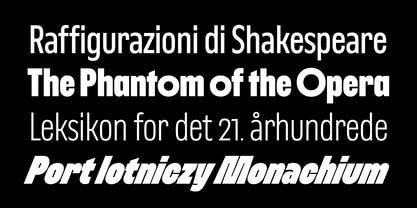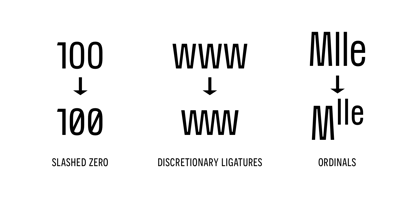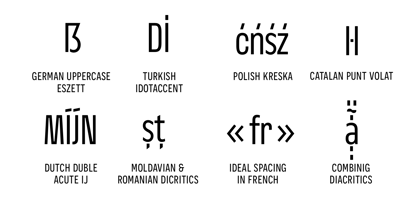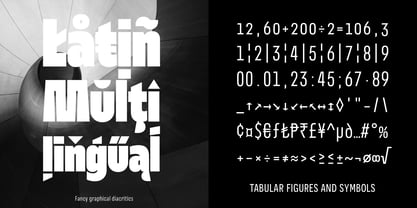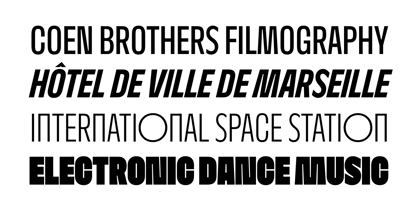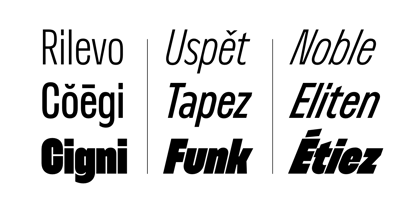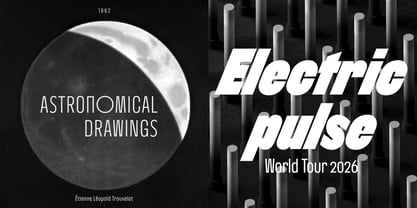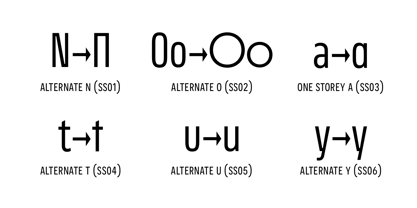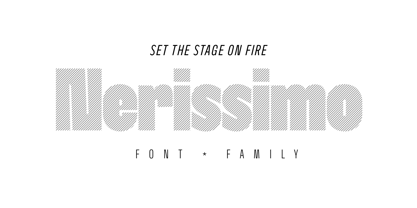
Nerissimo
by Synthview
The Nerissimo Font Family was designed by Jan Tonellato and published by Synthview. Nerissimo contains 18 styles and family package options.
A bold display typeface inspired by brutalist architecture, Nerissimo was built for headlines that demand attention. Its condensed letterforms blend hard angles with rounded strokes, resulting in a distinctly contemporary aesthetic rooted in mid-century modernism and pop culture. Nerissimo's name derives from Italian typography terminology: "nero" refers to bold weights (though it means "black" in everyday Italian), whilst "-issimo" serves as an intensifying suffix equivalent to "the most." The result? Nerissimo literally proclaims itself "the boldest." With 18 styles spanning six weights, Nerissimo provides rich typographic possibilities. Each weight features upright, italic (13°), and super italic (22°) variants—the latter offering pronounced slant for high-energy applications. The heaviest weights pack extraordinary tightness into each character, making them perfect for compressed all-caps settings with minimal line spacing. Look out for the idiosyncratic M, N, S, and W, which give Nerissimo its singular voice. The family ships with 768 glyphs per style, 27 OpenType features, and comprehensive Latin language coverage (220+ languages). Smart typography features include: • Contextual alternates that swap descenders (ą, j) for shorter variants where collisions would occur • A compact 'www' ligature for url-heavy layouts • Intelligent vertical alignment for circular glyphs (@, ©, ®, ℗, circled figures) when positioned near capitals—no manual feature activation required